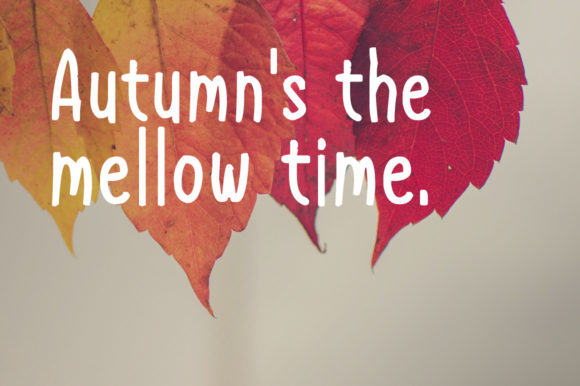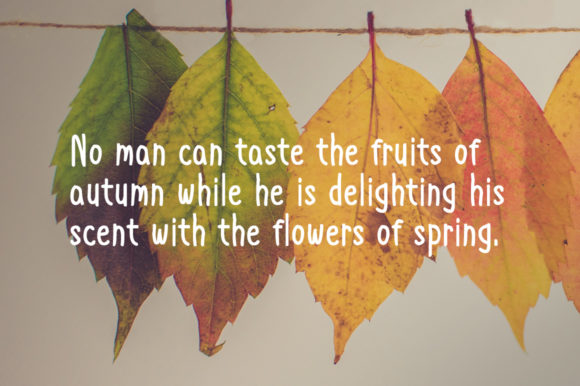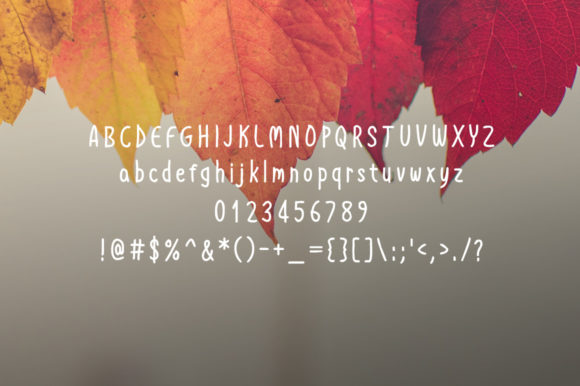
Discover the Cozy Charm of Autumn Happiness Font
As a designer, I’ve had my fair share of font hunting struggles. I recall working on a project for a fall-themed client, scouring through font libraries, and feeling like I was stuck in a design rut. That’s when I stumbled upon the Autumn Happiness Font – a sweet and autumnal font that instantly captured the essence of the season. In this article, I’ll share my experience with this lovely font, its features, and how to make the most of it in your designs.
A Personal Design Moment: Finding the Perfect Font
I was working on a project for a cozy fall festival, and I needed a font that would evoke the warmth and comfort of the season. I tried several fonts, but none seemed to fit the bill. That’s when I discovered Autumn Happiness, and it was love at first sight! The font’s playful, yet elegant design perfectly captured the essence of fall.
- ✨ The font’s autumnal theme is perfect for seasonal designs, from September to November.
- ✅ The font is highly legible, even at small sizes.
- 🎉 The font comes with a range of OpenType features, including glyphs and stylistic alternates.
- 👍 The font is versatile and can be used for a variety of design projects, from crafts to digital designs.
- 🤔 The font may not be suitable for very formal or corporate designs, as it has a playful tone.
- ⚠️ Some users may find the font’s autumnal theme too specific, limiting its use outside of seasonal designs.
A Practical Guide: Using Autumn Happiness in Your Designs
The Designer Inspiration Behind Autumn Happiness
Autumn Happiness was designed with the intention of capturing the warmth and coziness of the fall season. The designer aimed to create a font that would evoke feelings of nostalgia and comfort, perfect for designs that celebrate the beauty of autumn.
Q: What is the best way to use Autumn Happiness in my designs?
A: Autumn Happiness is a versatile font that can be used in a variety of designs, from crafts to digital designs. Experiment with different font sizes, styles, and OpenType features to find the perfect look for your project.
Q: Is Autumn Happiness a script font?
A: No, Autumn Happiness is a sans-serif font with a playful and autumnal theme.